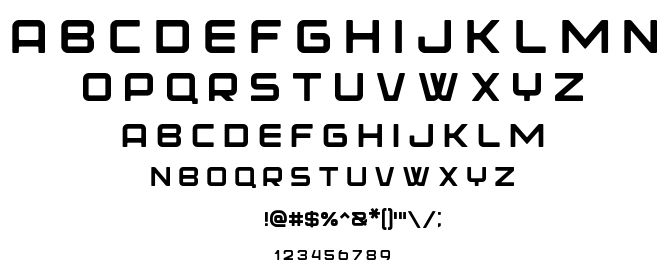
BOWLER by Vladimir Klenov is a free display typeface meant for use in large sizes and works in an effective way to make attention-grabbing headlines.